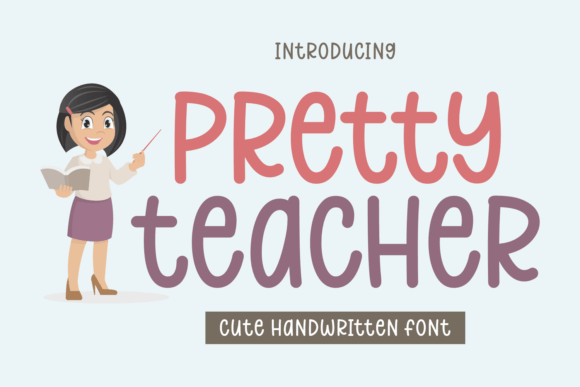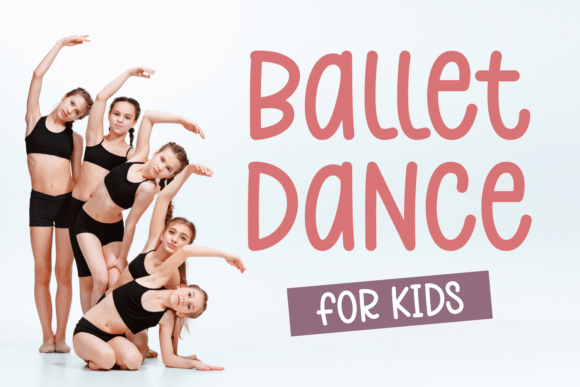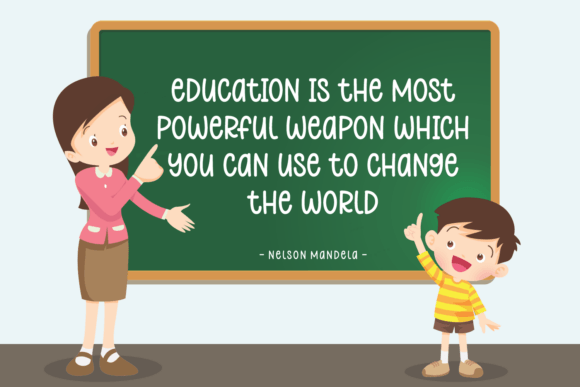
Pretty Teacher Font: A Playful Handwritten Font for Cricut & Crafts
About the Pretty Teacher Font
Elevate your designs with Pretty Teacher Font, a font that combines sophistication with readability. Pretty Teacher is a cute, handwritten font that brings a playful and friendly vibe. With its rounded letters and whimsical style, it feels fun and inviting, perfect for projects like children’s books, posters, or any creative work that needs a cheerful touch.
Its playful energy makes it ideal for children’s branding, invitations, short quotes on social media, and playful packaging designs. However, its informal nature makes it unsuitable for body text or large blocks of information, as readability would suffer. Avoid using it in UI contexts requiring high legibility.
Pretty Teacher pairs well with clean sans-serif fonts like Open Sans for a balanced contrast, or a more geometric sans-serif like Montserrat for a modern feel. A simple serif like Merriweather could add a touch of sophistication while maintaining the friendly overall aesthetic.
The font’s core personality is undeniably cheerful and approachable, conveying a sense of fun and youthful energy.
Pretty Teacher Font Usage Examples
Pretty Teacher Font Example